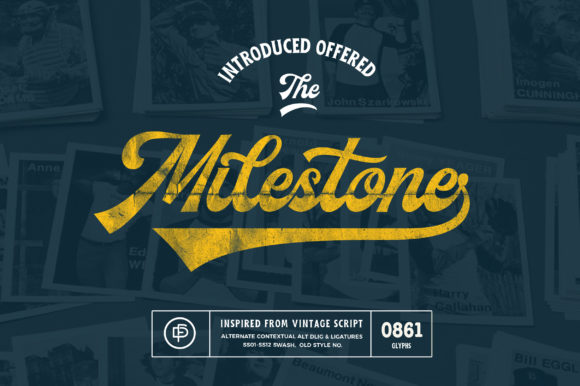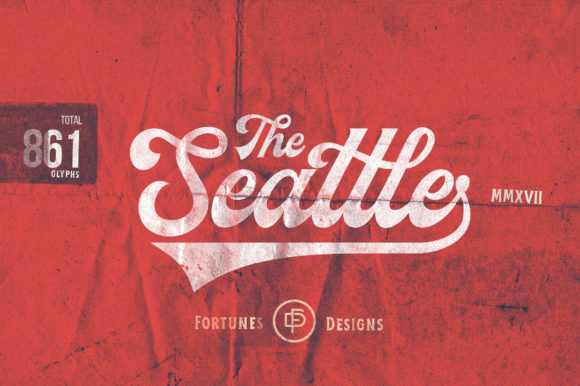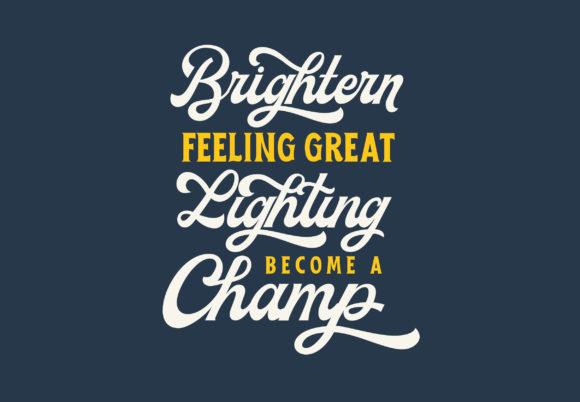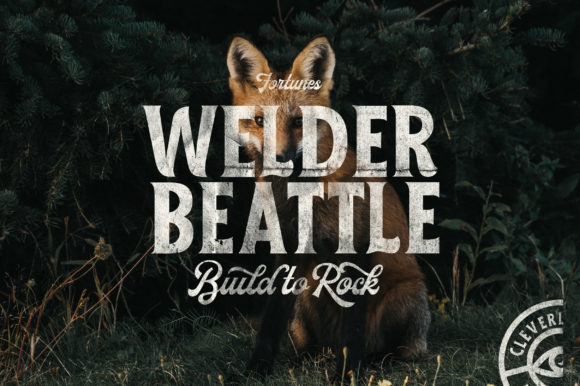
Milestone Font
About the Milestone Font
Discover the charm of Milestone Font. This font is a perfect blend of modern aesthetics and classic appeal. Milestone is a beautiful duo font (handwritten and serif) inspired by Vintage baseball sport, sign painting, labeling, suitable for logo, labels, old-fashioned coffee shops, bars, and everything with specific characteristics of past times. Milestone is great combined to create something good and with a vintage feel!
Milestone’s bold, slightly rugged character makes it ideal for headlines, logos, and short-form text on packaging or posters. Its vintage aesthetic shines in branding for craft breweries, barber shops, or retro-styled apparel. Avoid using it for large blocks of body text or UI elements; its handcrafted nature reduces readability in extended passages.
Pairing Milestone with a clean sans-serif like Montserrat for body text offers a strong contrast and balanced readability. For a more vintage feel, consider a complementary serif such as Playfair Display or a slightly more geometric sans-serif like Raleway. A script font like Great Vibes could add a touch of elegance to select applications, but use sparingly to avoid visual clutter.
The overall personality is confident and nostalgic, conveying a sense of heritage and authenticity. It’s a font that speaks to tradition with a modern twist.
Milestone Font Usage Examples
Milestone Font Example